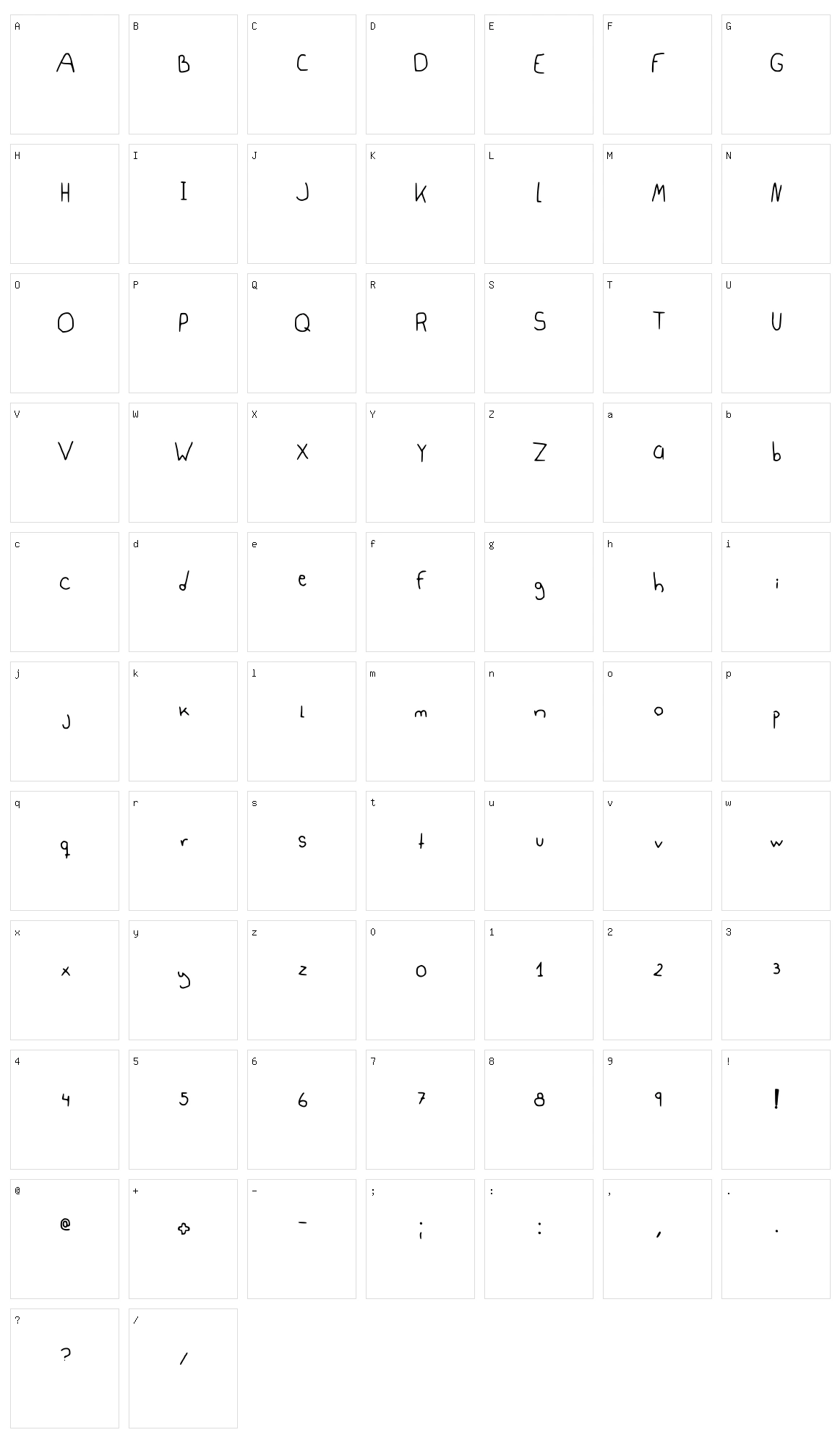
The free font Sami Bublegum is carefully designed by sami, showcasing a thoughtful balance of creativity and usability and falls under the Script font style. When you download the ZIP file, it contains only 8.05 KB of font files, making it lightweight and quick to download. Please review the license details below to understand permitted usage and distribution rights. If license information is not available, we recommend using this font for personal projects only or contacting the author directly for commercial usage permissions.